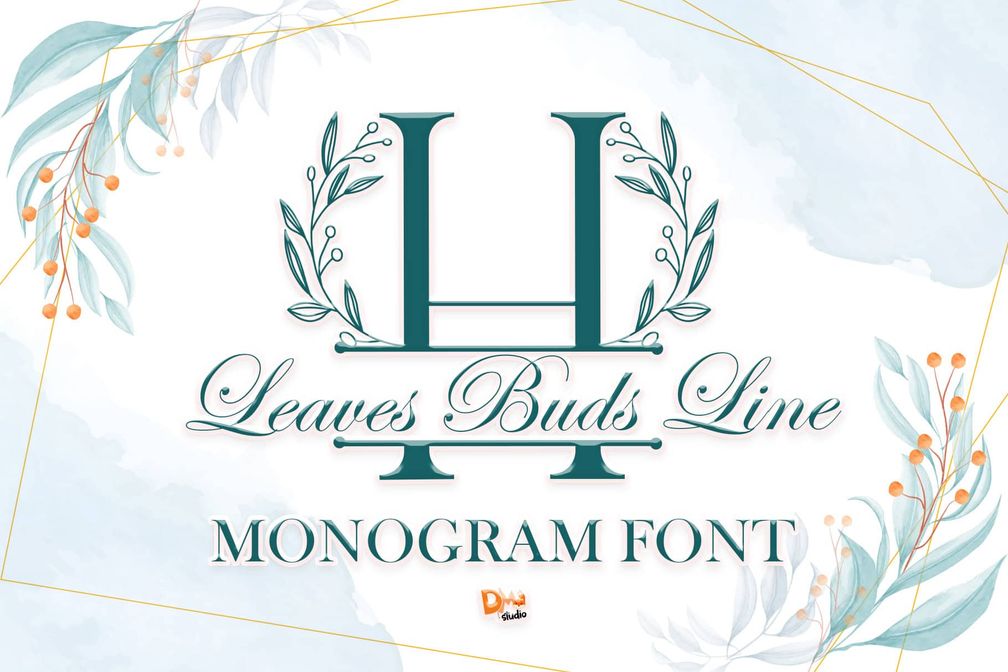
Leaves Buds Line Monogram
Leaves Buds Line Monogram – Elegant & Nature-Inspired Monogram Font
Leaves Buds Line Monogram is a delicately crafted monogram font featuring elegant botanical elements. Designed with fine line details, this font is perfect for luxury branding, wedding invitations, personalized stationery, boutique packaging, and decorative initials. Inspired by nature, it brings a fresh and organic aesthetic to any design.
• Botanical-Inspired Monogram Style: Adorned with delicate leaf and bud details for a natural, sophisticated look.
• Minimalist & Timeless Aesthetic: A balance of organic beauty and refined elegance.